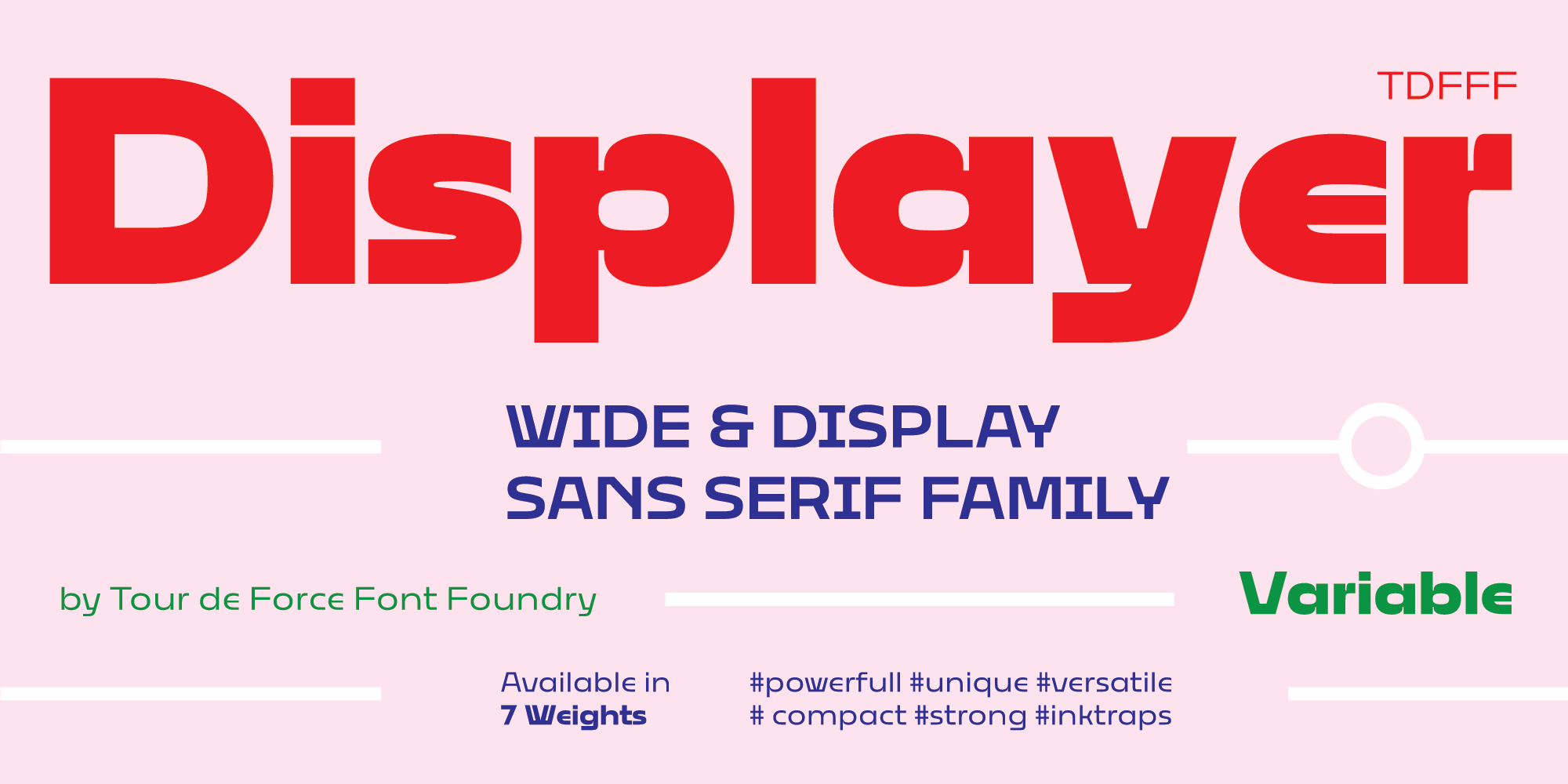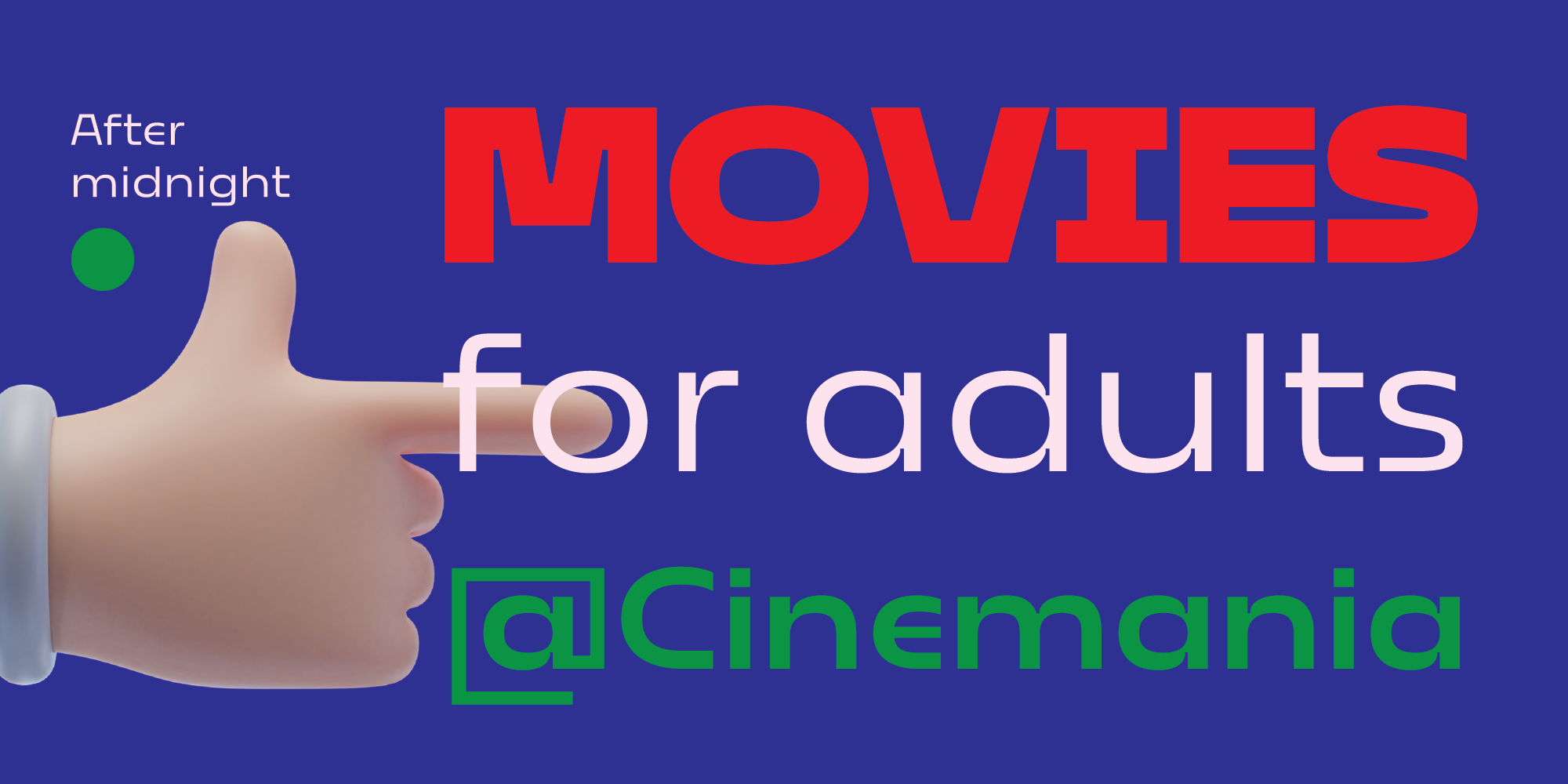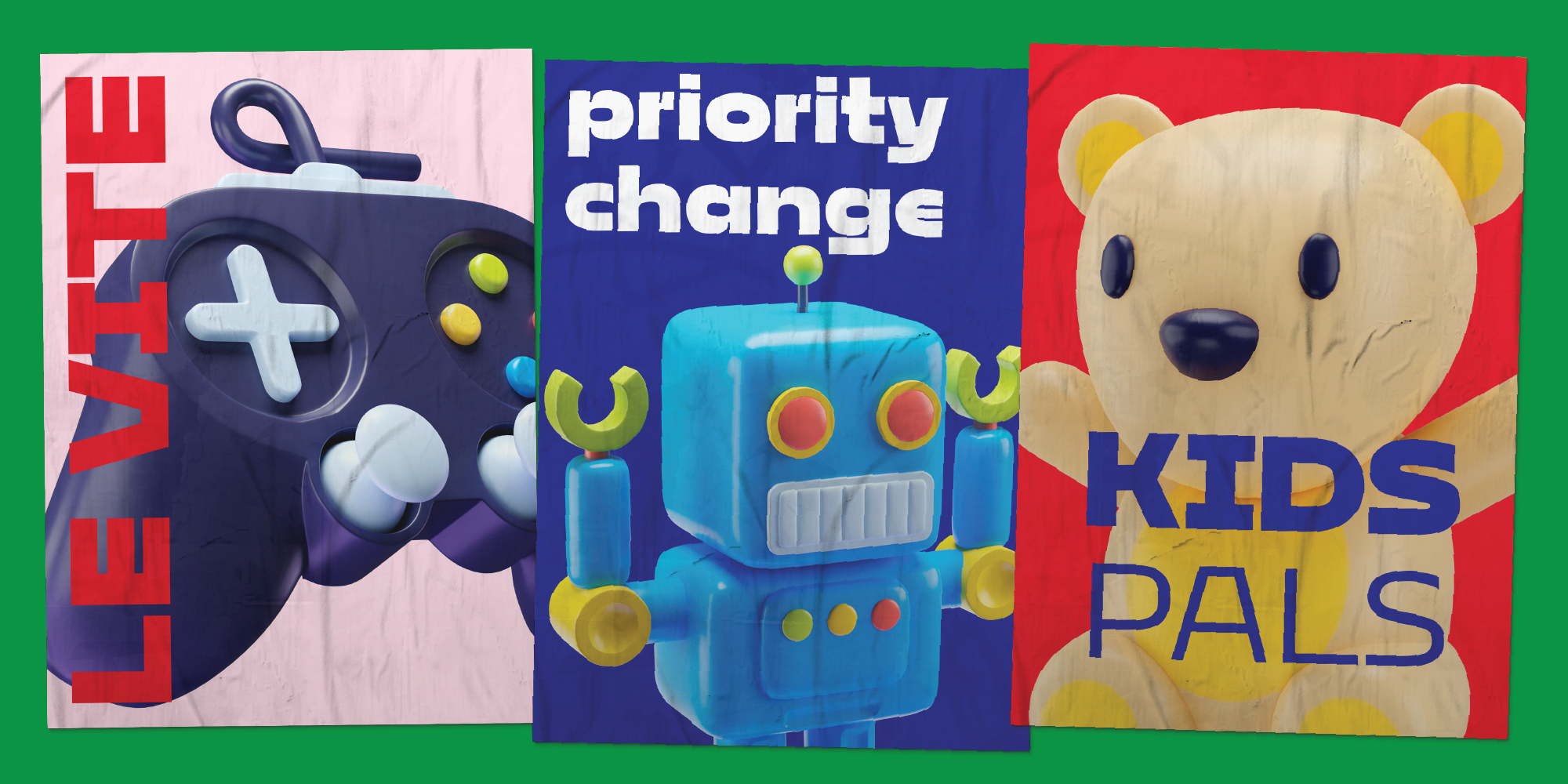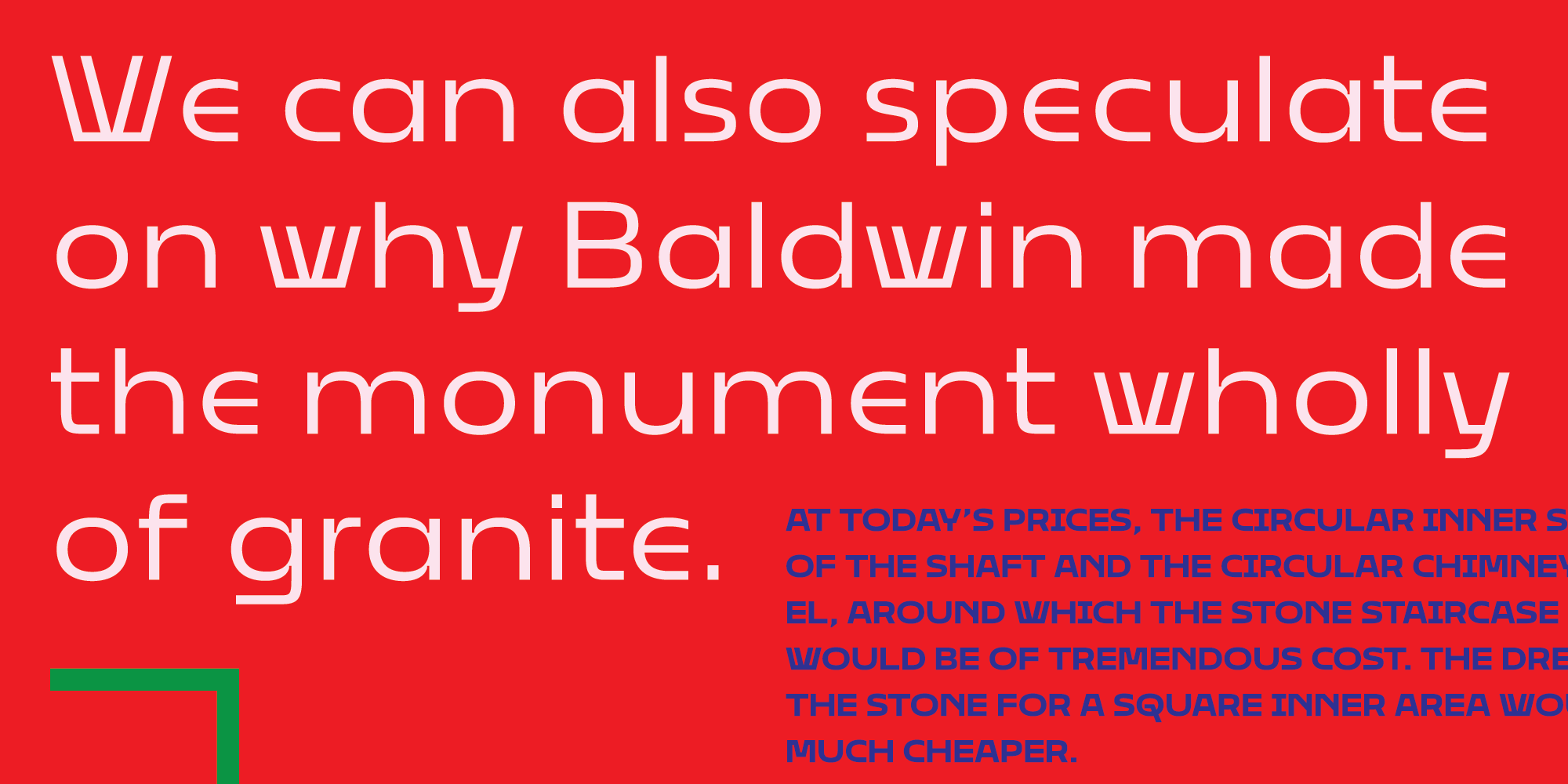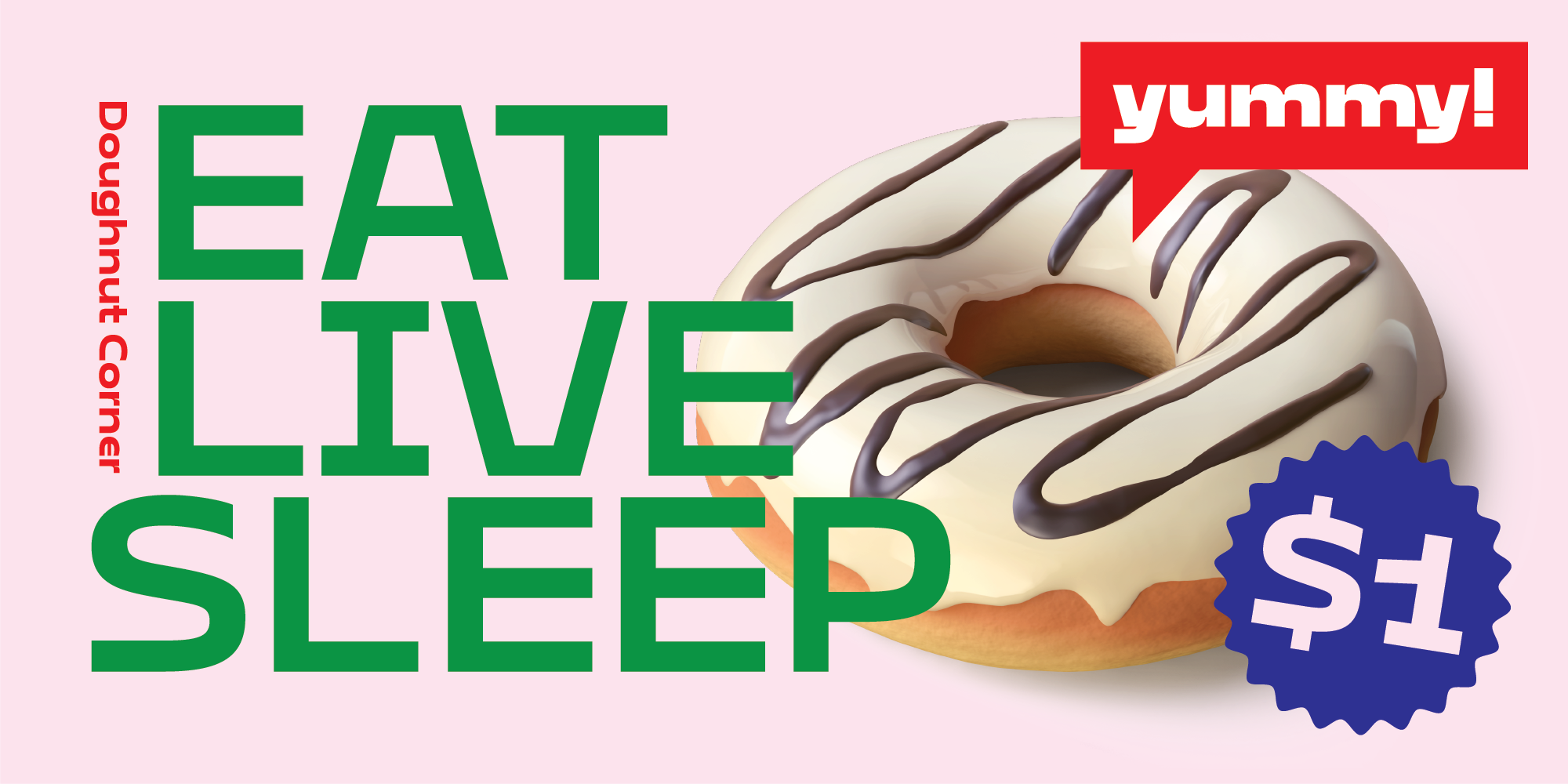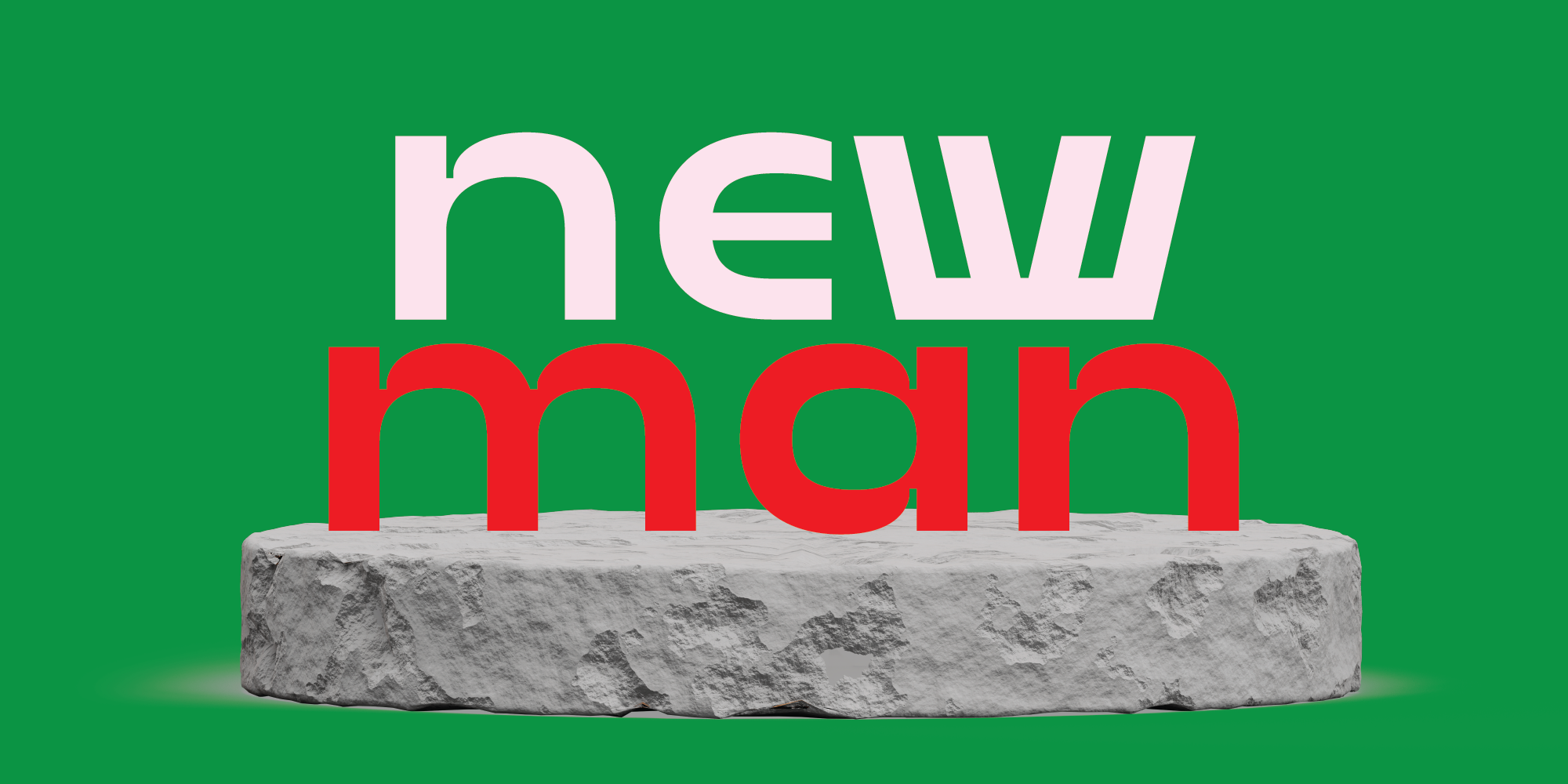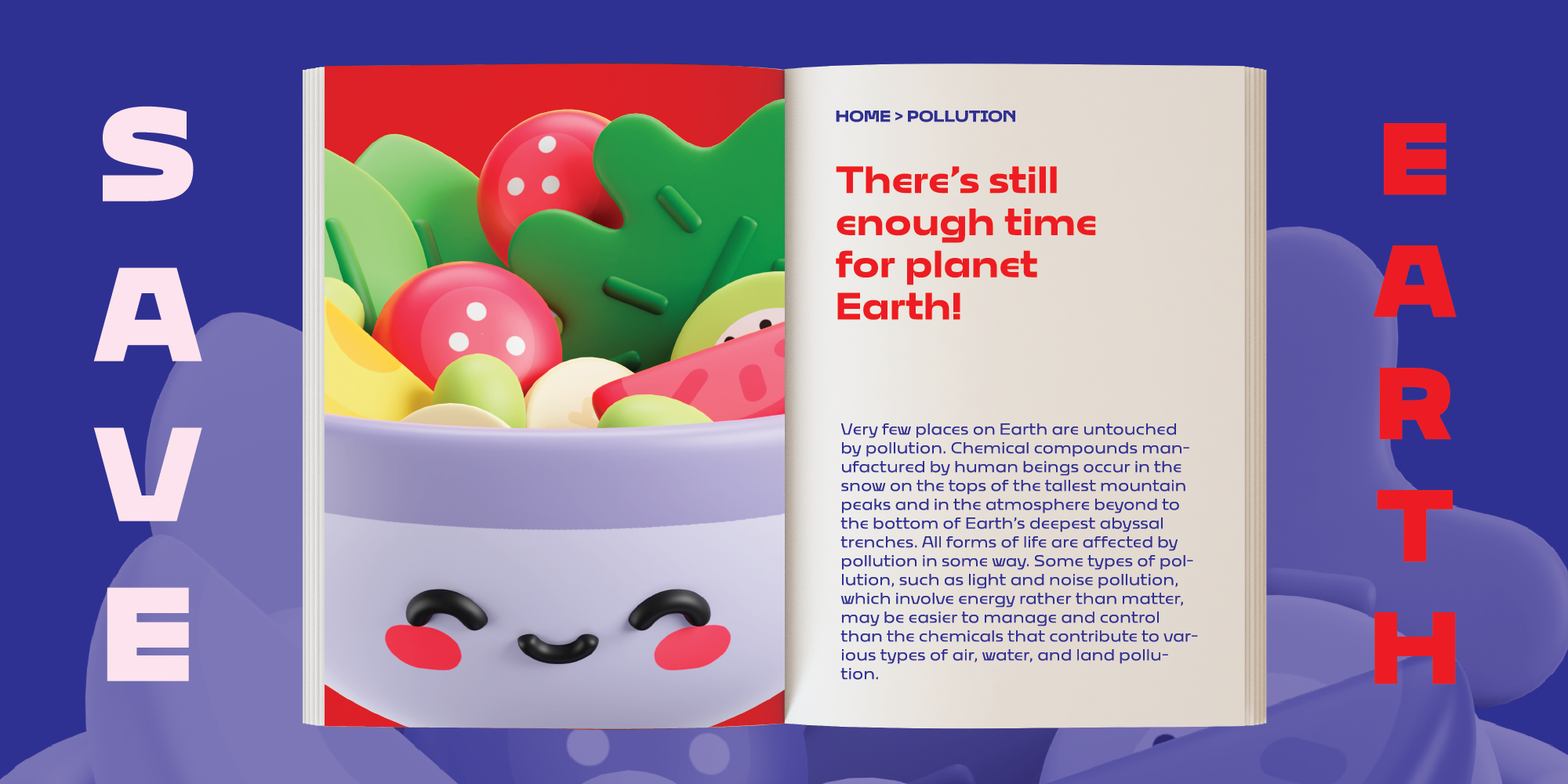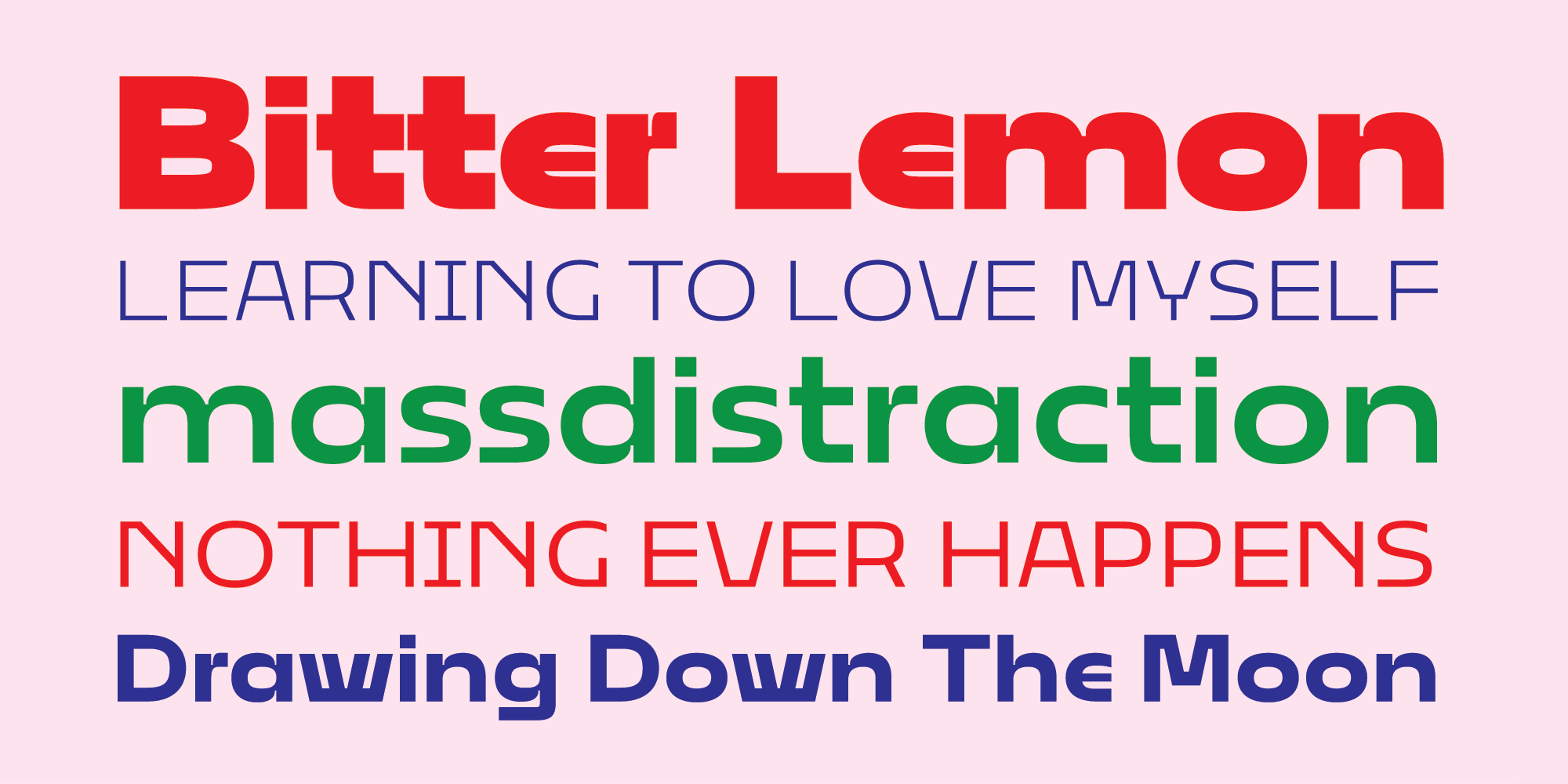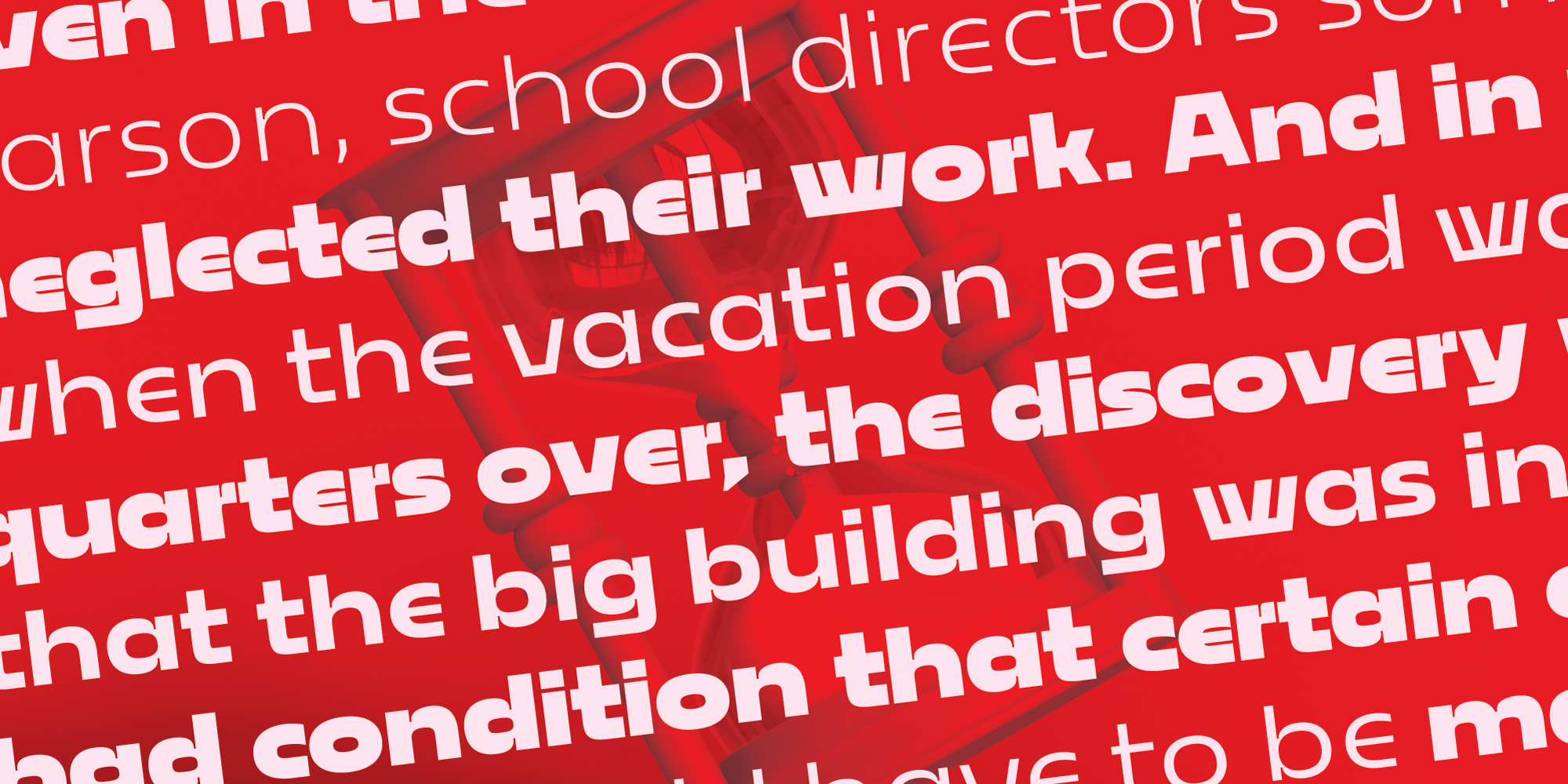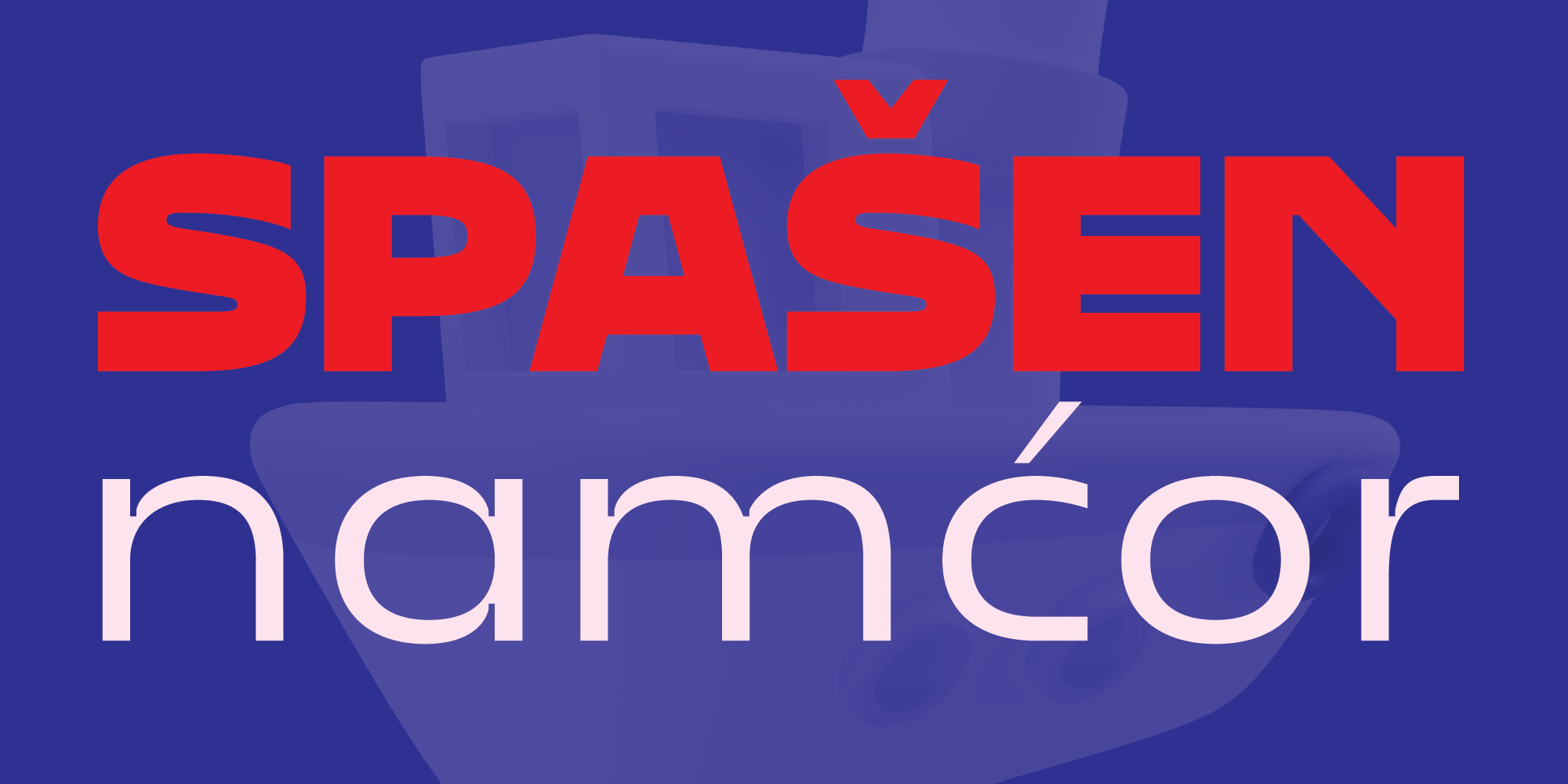
Displayer font family is modern, wide and sans serif family available in 7 weights and Variable type file.
It's strong, stable, compact, futuristic family with some specific letter design and generous ink-trap. With it's display charm, Displayer fits perfectly into any branding project – use it in posters, package, website, logo, video games, magazines.
Contains fractions and standard ligatures with Extended Latin character map.